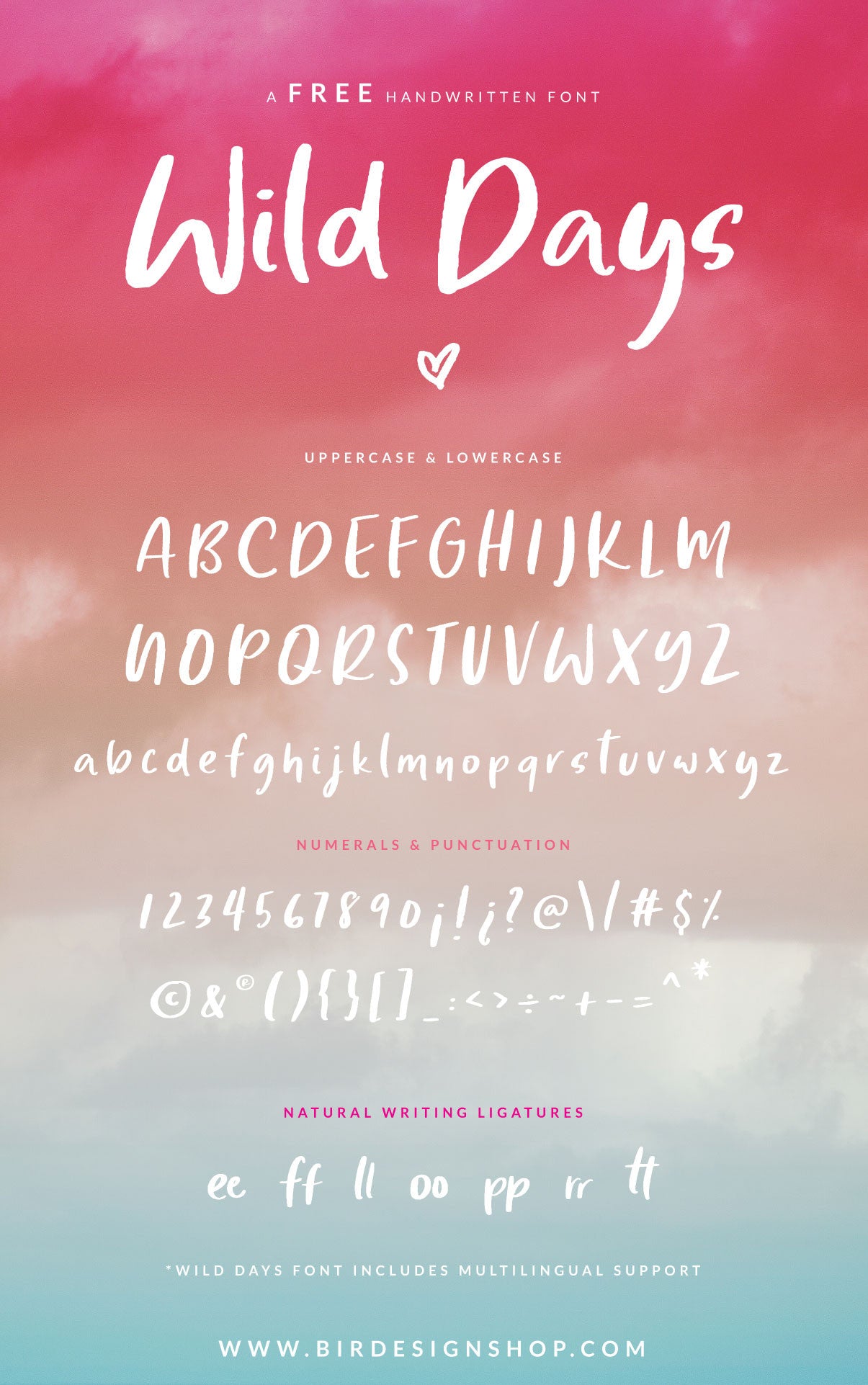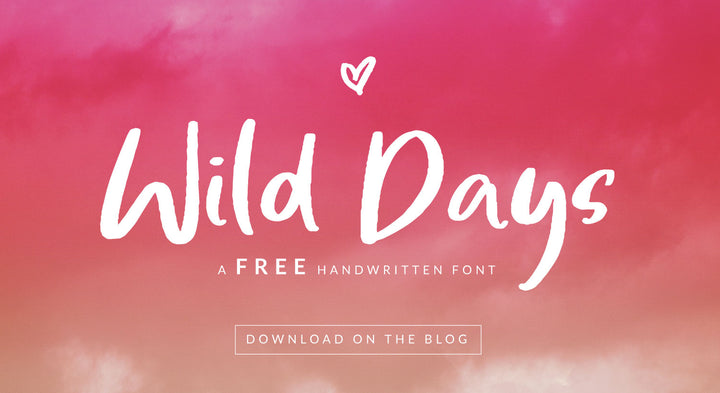
MAY Freebie! A handwritten font!
In love with this month's freebie, I feel I'm still daydreaming when creating these fonts. I'm truly enjoying the process and when it's done I look like a kid in a candy store, can hardly believe I can play around with it in my designs, creating quotes, testing names and more.
So, one night I was playing with my Apple Pen and did these lovely characters that when put together they just look awesome, playful and funky. The "Wild Days" font has double-letter ligatures giving a natural handwriting feeling and it includes multilingual support, so you can write in several languages (such as Spanish, French, Dutch, Danish, German, Italian, Norwegian, Portuguese, among many others).